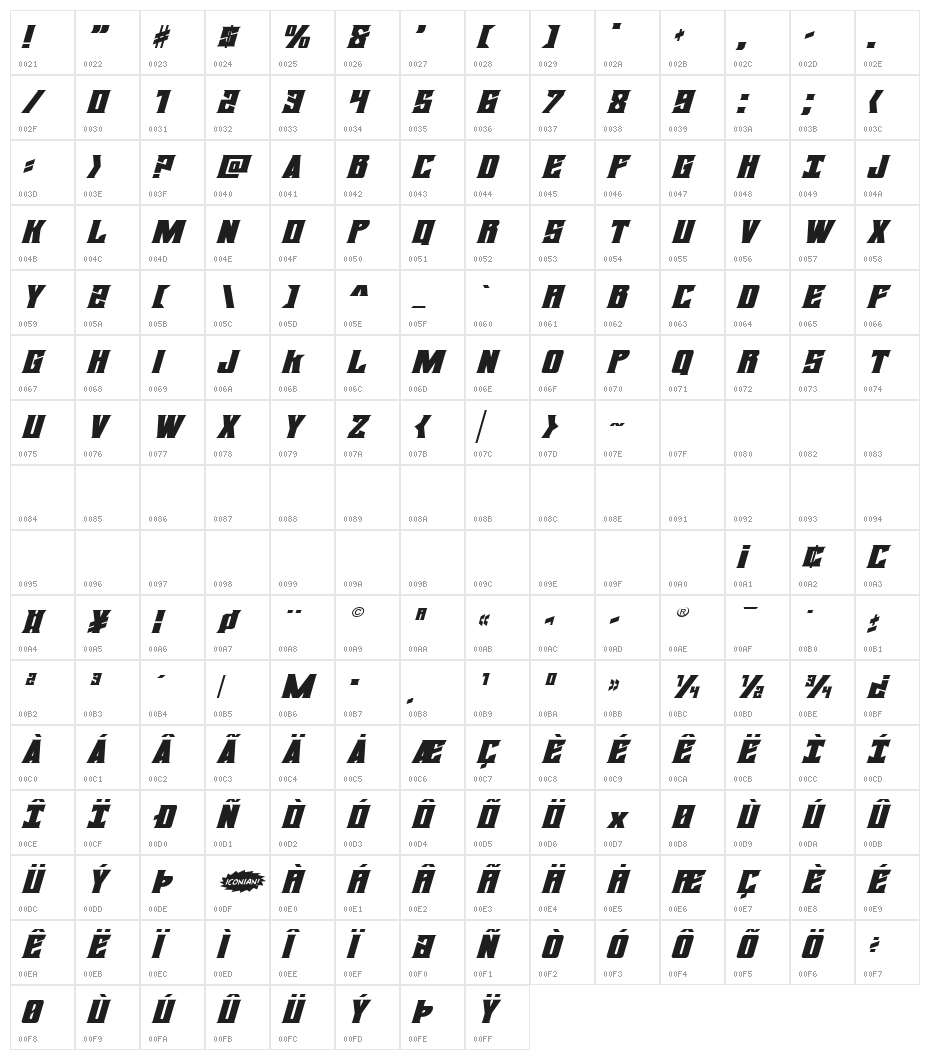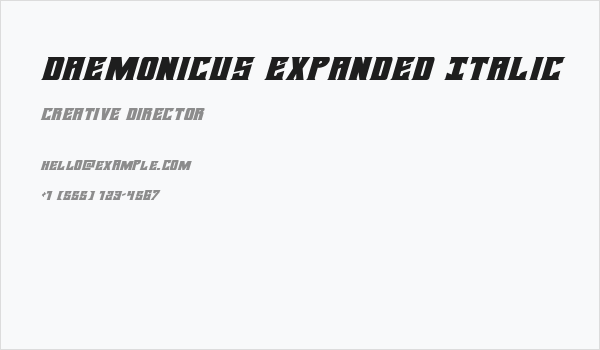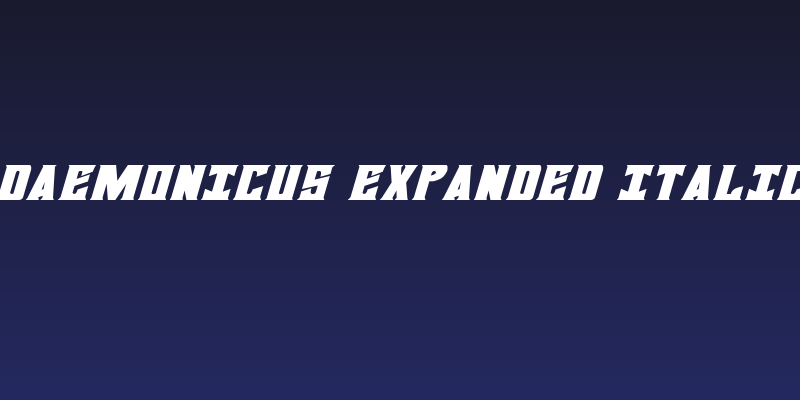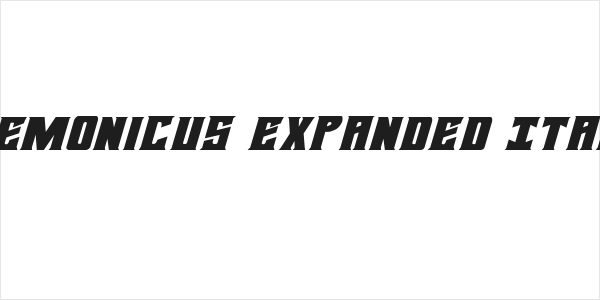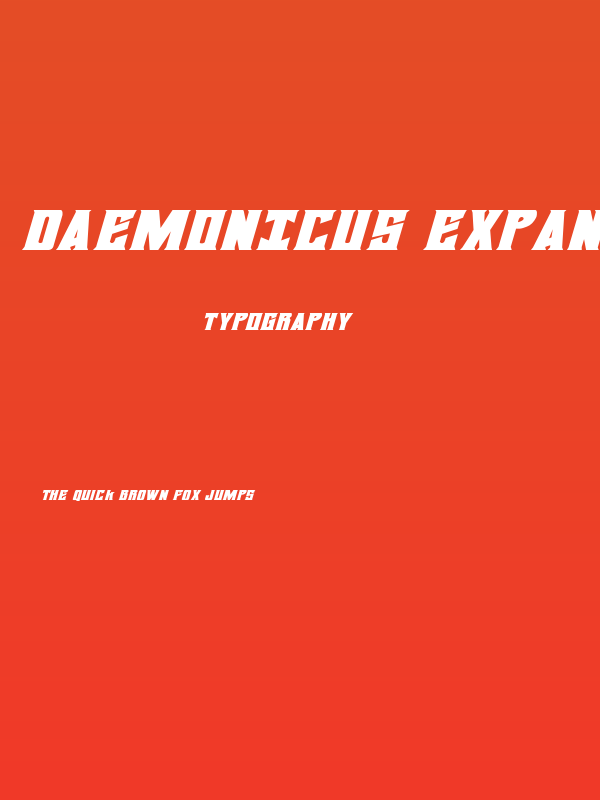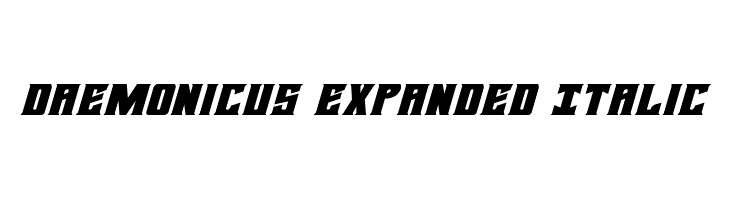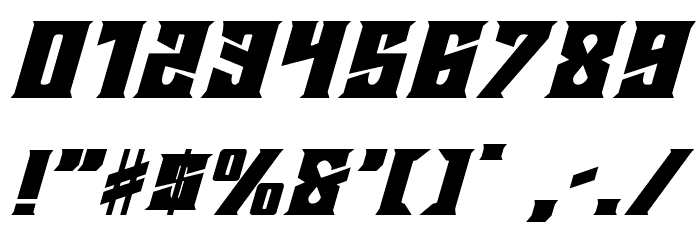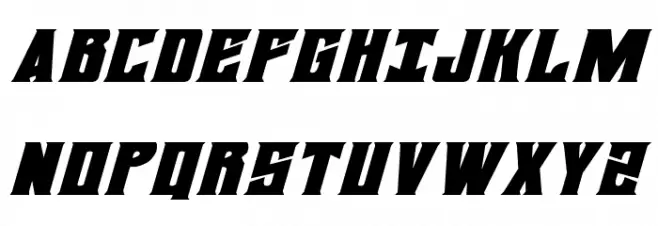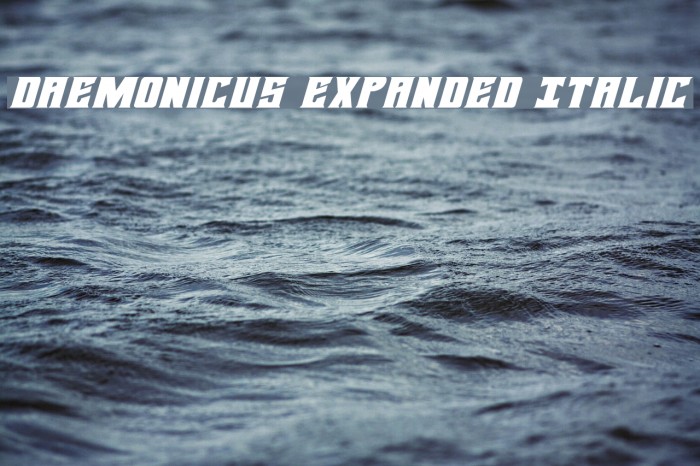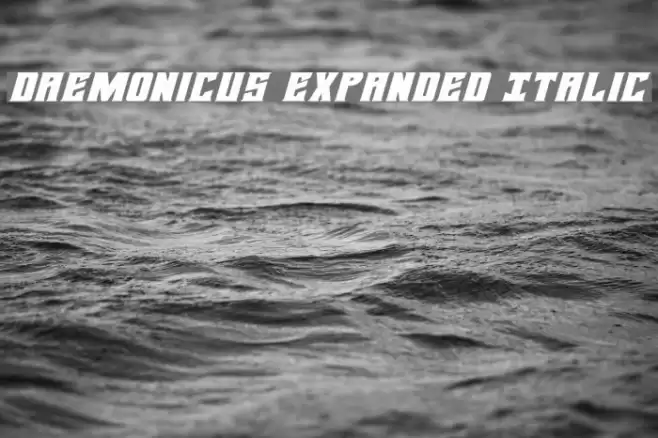
Daemonicus Expanded Italic Font
Daemonicus Expanded Italic Description
This font features a bold and dynamic style with a strong italic slant, giving it a sense of movement and energy. The characters are wide and expanded, with sharp, angular edges that create a striking and aggressive appearance. The uppercase and lowercase letters maintain a consistent style, while the numerals and special characters complement the overall aesthetic. The boldness of the strokes and the expanded width make it highly visible and impactful, suitable for attention-grabbing designs.
| Proposed Projects | Ideal for posters, logos, video game titles, and any project requiring a bold, dynamic look. |